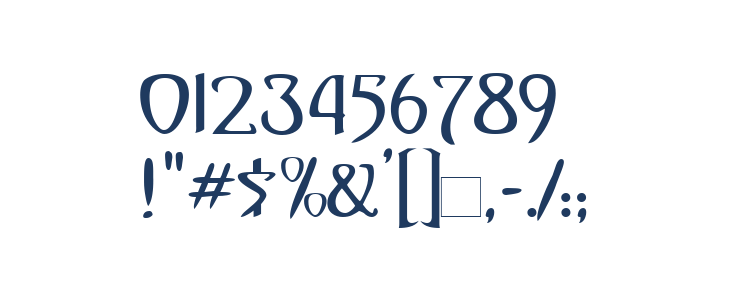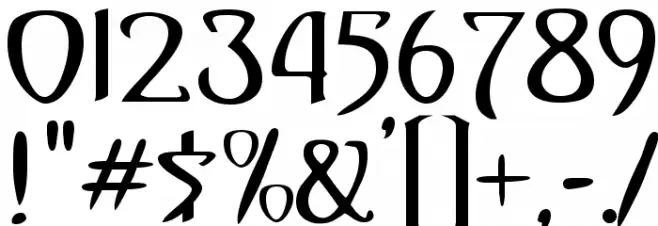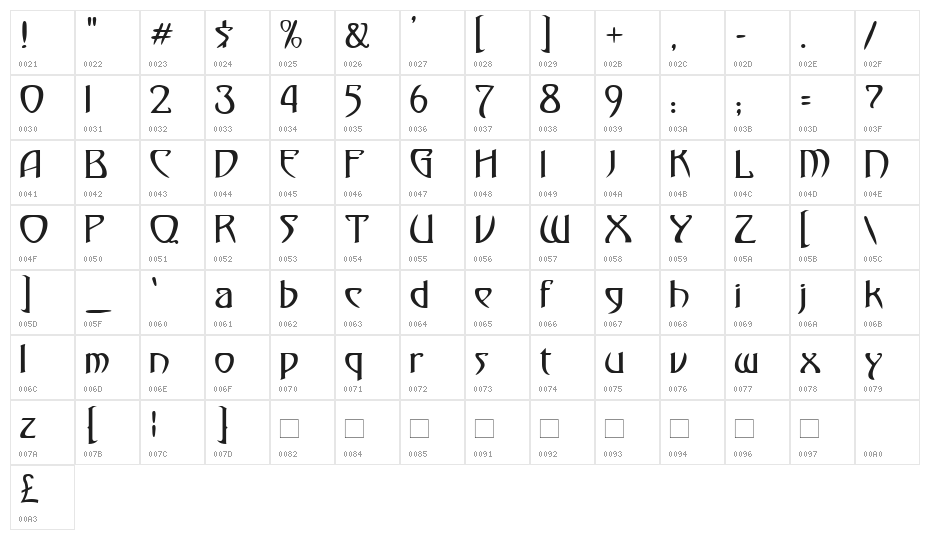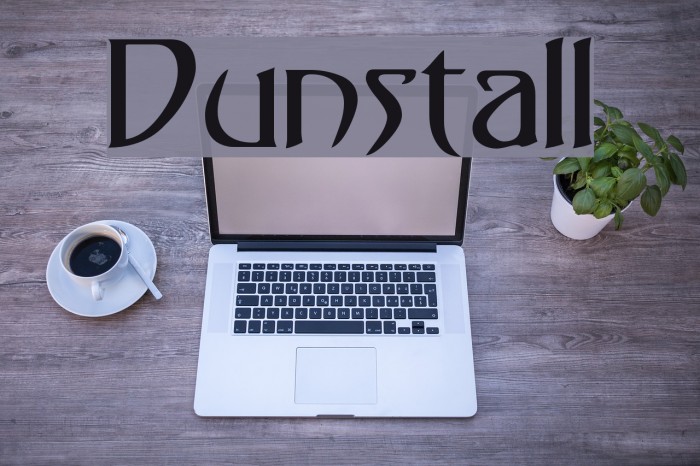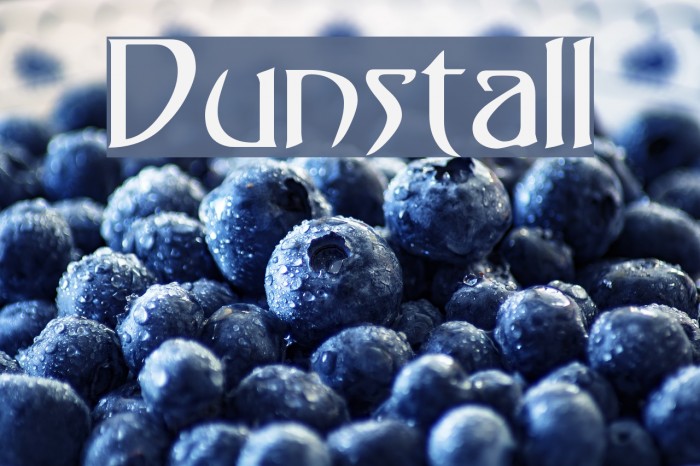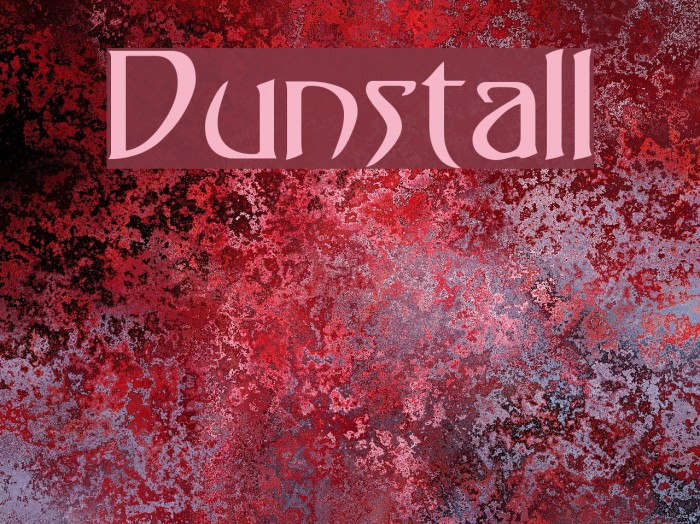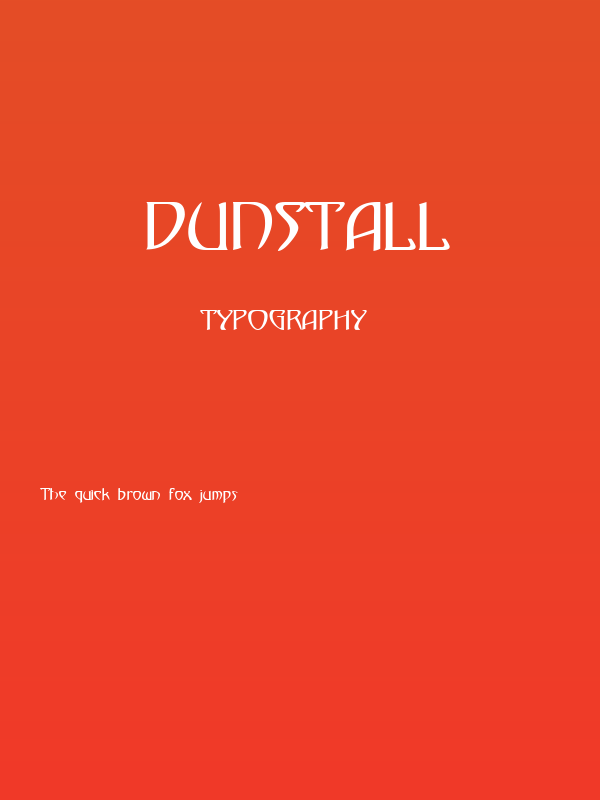
Dunstall Font
Dunstall Description
This font features a distinctive and bold design with sharp, angular edges and a gothic influence. The uppercase letters exhibit a unique blend of traditional and modern elements, with elongated verticals and pointed serifs. The lowercase letters maintain a consistent style, offering a harmonious flow with slightly curved strokes. Numbers are crafted with a similar aesthetic, ensuring readability while maintaining the font's unique character. Special characters are designed to complement the overall style, making them suitable for decorative purposes.
| Overall Style | Modern Gothic |
| Proposed Projects | Ideal for branding, posters, album covers, and any project requiring a bold, eye-catching typeface. |